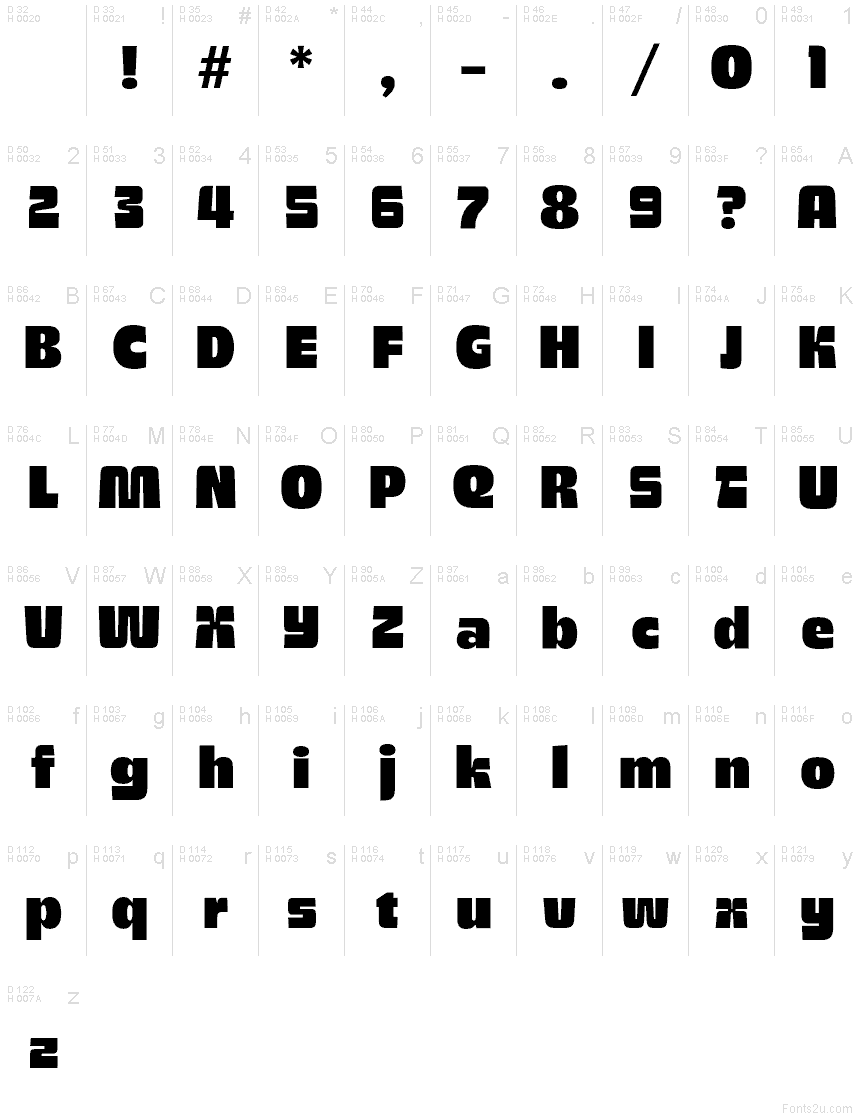
SG Takimon ExtraBold DEMO
SG Takimon ExtraBold font by Studio Gulden is a free extra‑bold rounded sans typeface. Part of the SG Takimon family, it packs dense, soft‑rectangle shapes that feel like pressed rubber—thick strokes, smooth corners, and compact spacing that lock together into solid, punchy words. The result is a monolithic voice that reads fast at a glance but still feels friendly and tactile.
Using SG Takimon ExtraBold, headlines snap with presence on posters, esports logos, gaming covers, packaging, thumbnails, stickers, and bold app splash screens. The rhythm is steady and blocky, so short phrases and numbers hit hard without visual noise. For copy alongside, pair it with a light geometric sans or add a touch of letterspacing to open up smaller subheads. This free font thrives where you need chunky impact with soft edges.